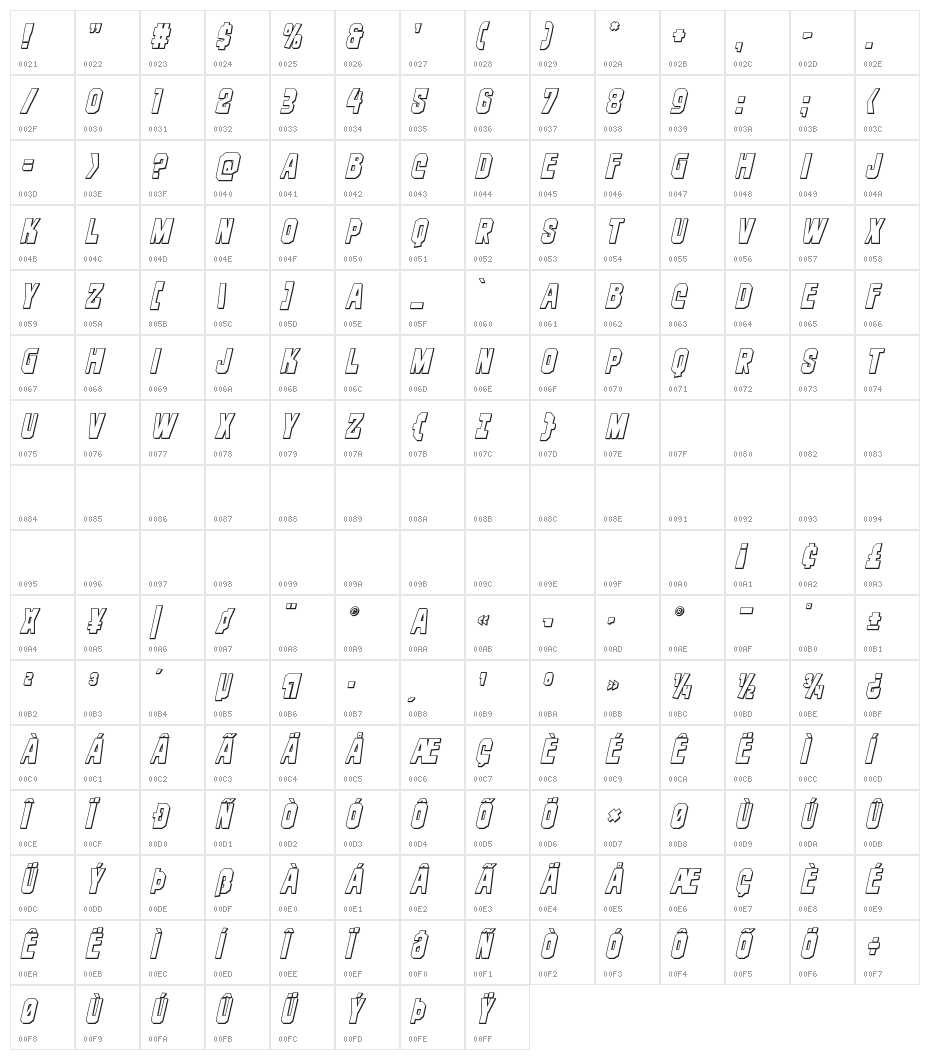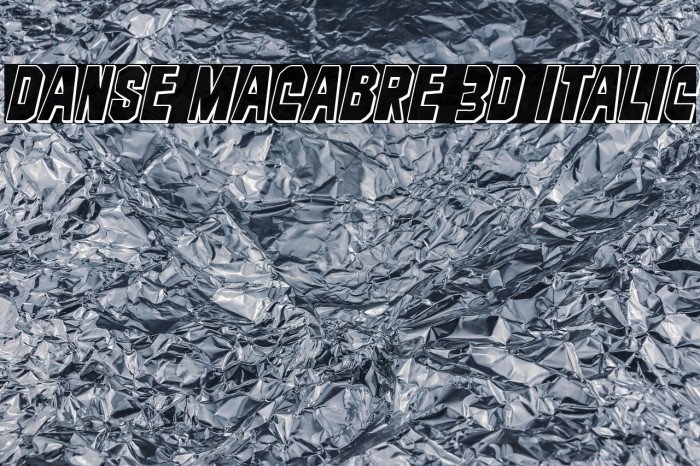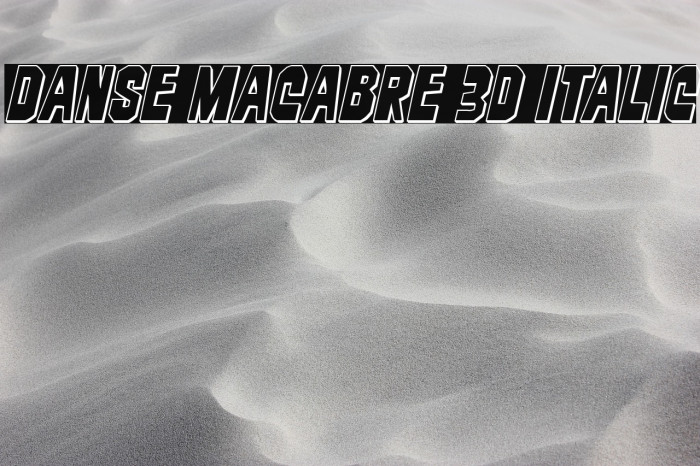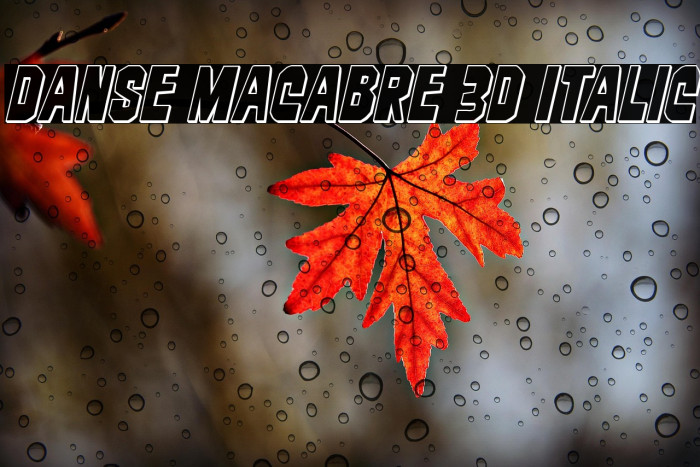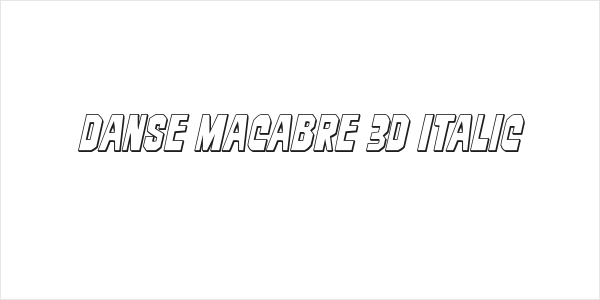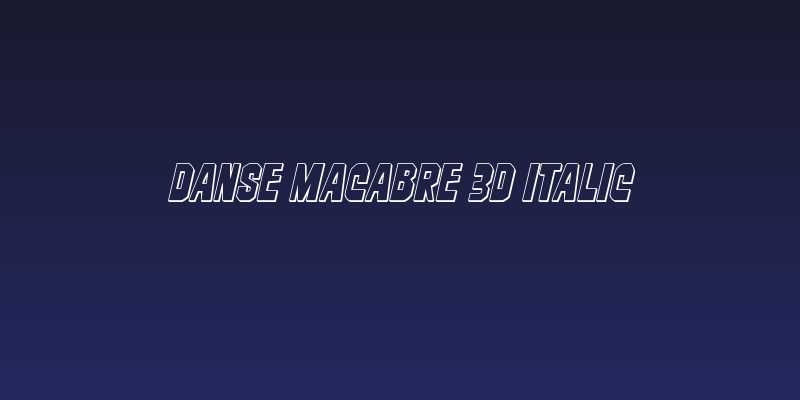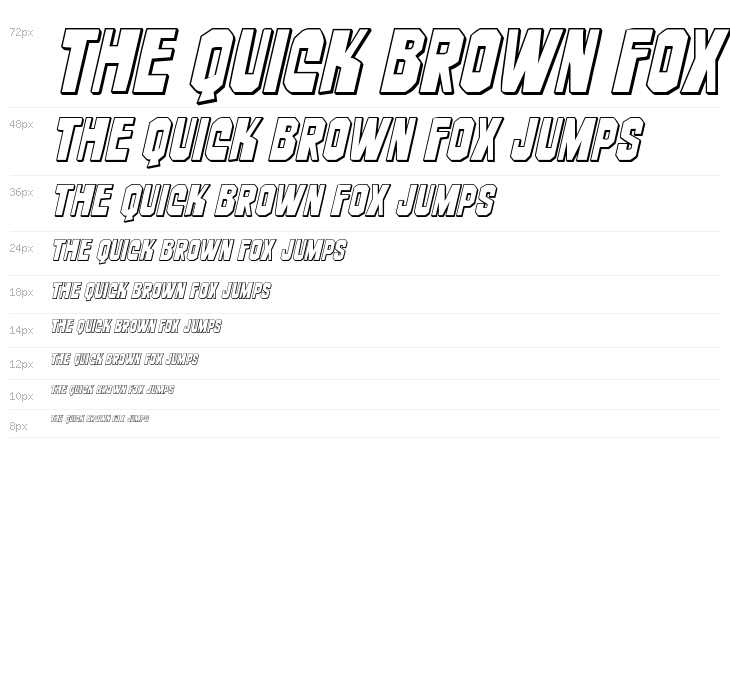
Danse Macabre 3D Italic Font
Danse Macabre 3D Italic Description
This font features a bold, three-dimensional design with a distinct italic slant, giving it a dynamic and modern appearance. The characters are outlined, creating a striking visual effect that enhances readability while maintaining a unique style. The uppercase letters are prominent and commanding, making them ideal for attention-grabbing headlines or titles. The numerals and special characters are consistent with the overall design, ensuring a cohesive look across different uses. The font's geometric structure and clean lines contribute to its contemporary feel, making it suitable for a variety of creative projects.
Proposed ProjectsIdeal for posters, logos, video game graphics, and any project requiring a bold, eye-catching typeface.